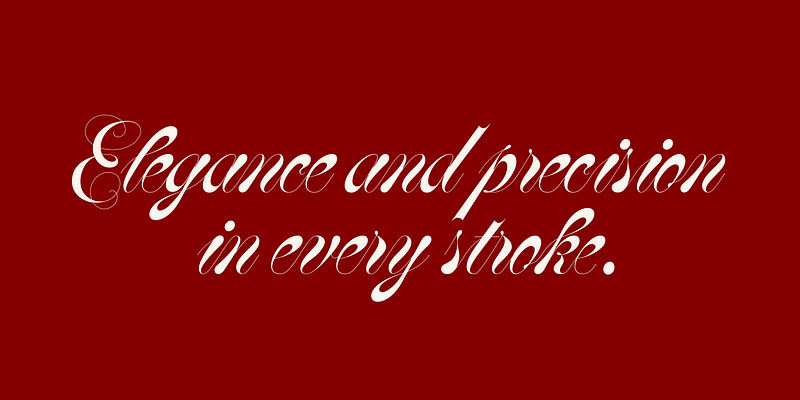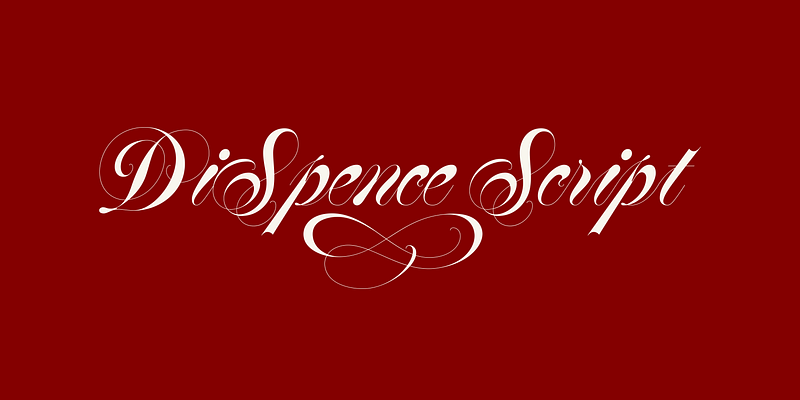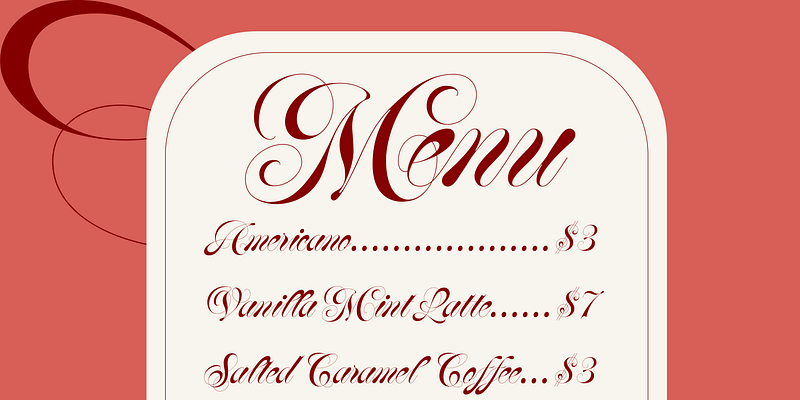
An extremely refined and elegant Specerian design with marvelously thin strokes, DiSpence Script performs best at slightly larger sizes. Hand-penned by Tony DiSpigna, DiSpence uses true hairlines for the thinnest strokes.